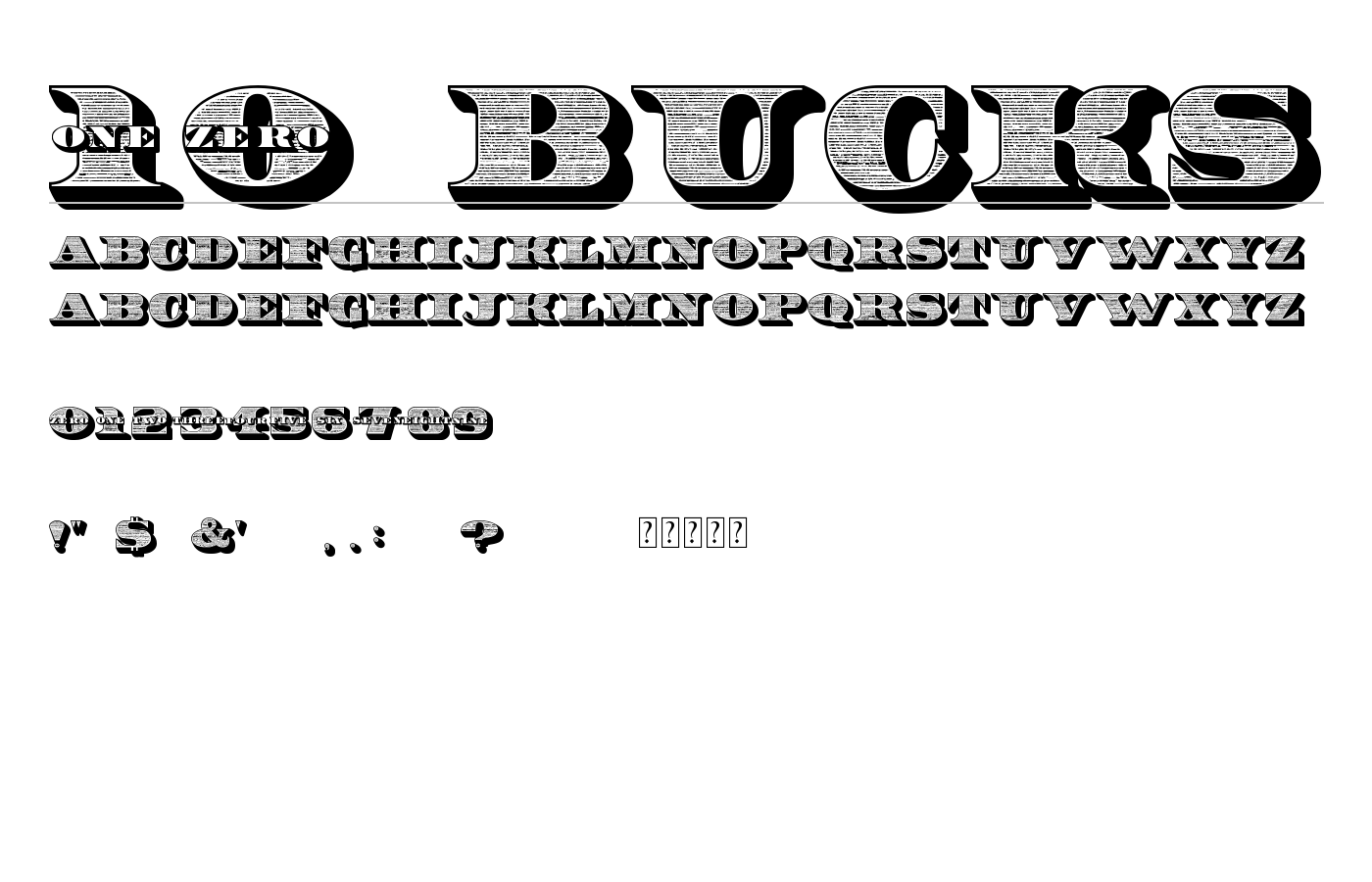
10 Bucks Font is a bold serif typeface with a vintage, Western-inspired style characterized by thick block serifs, high contrast shading, and textured horizontal lines that give it a three-dimensional engraved look. Its strong, decorative letterforms and tight spacing make it ideal for eye-catching headlines, posters, and branding that evoke a rugged, old-timey feel with a touch of playfulness. This font works well in designs seeking a nostalgic or rustic charm, perfect for fashion, packaging, or editorial projects needing an impactful, classic statement.
10 Bucks Font
About 10 Bucks Font